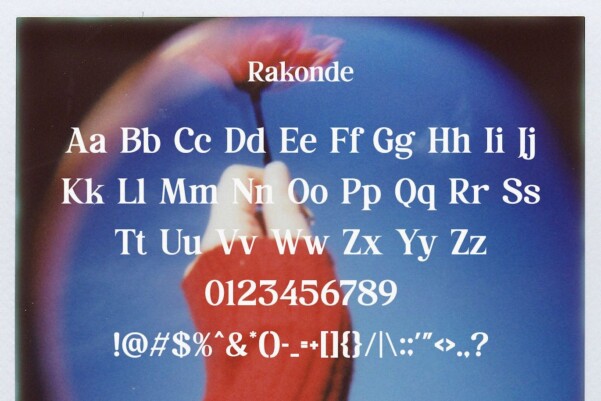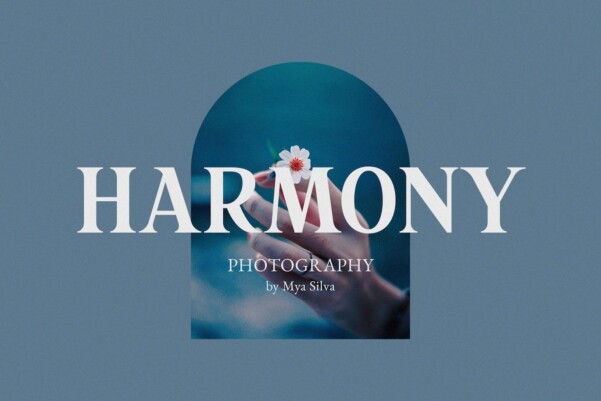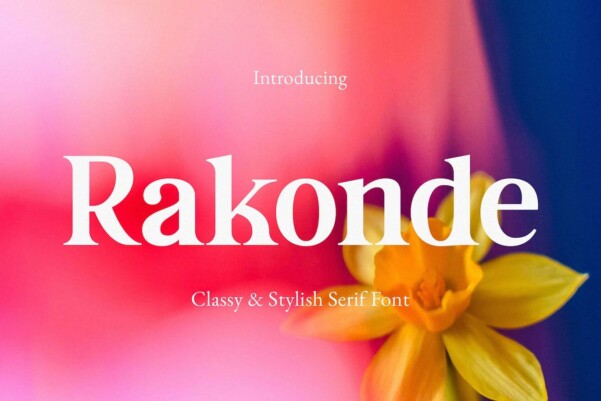
Rakonde Font
Rakonde Font, modern serif font with elegant style this is perfect for branding, logos, invitation, magazines, product packaging and more.